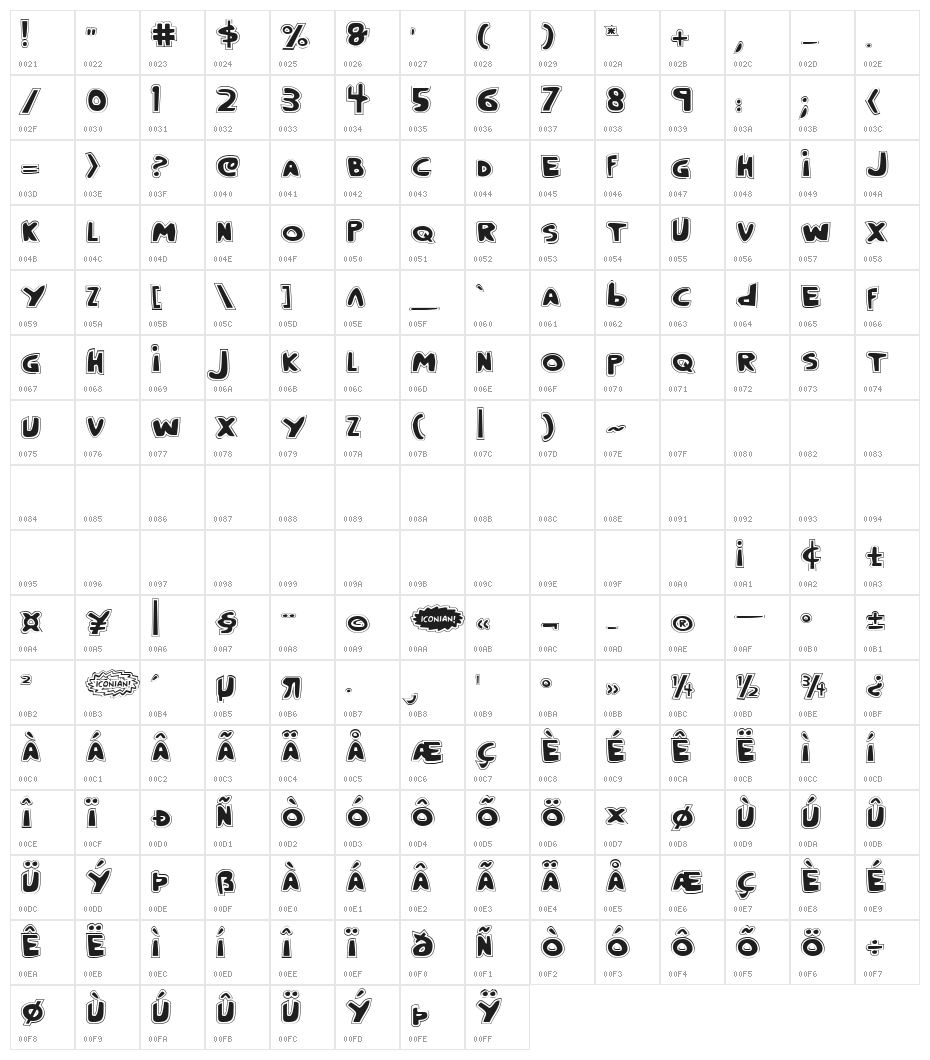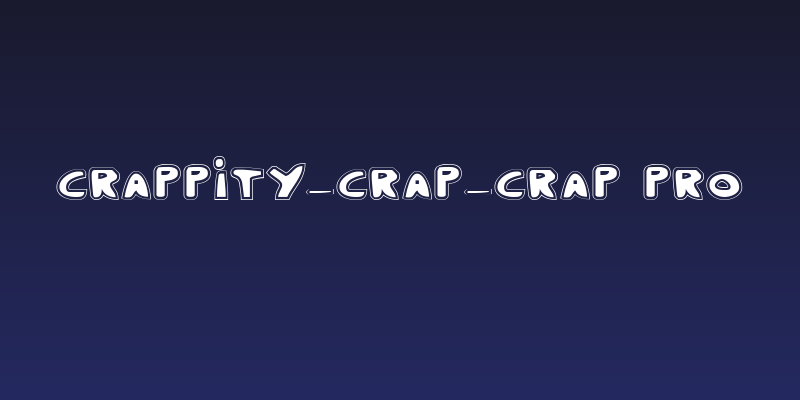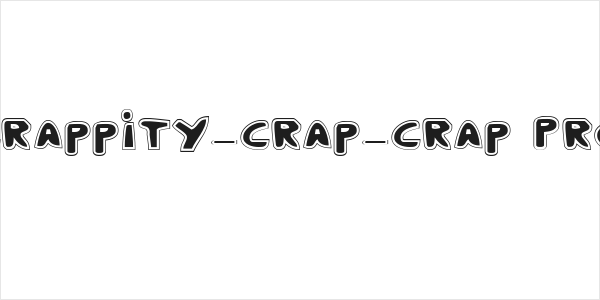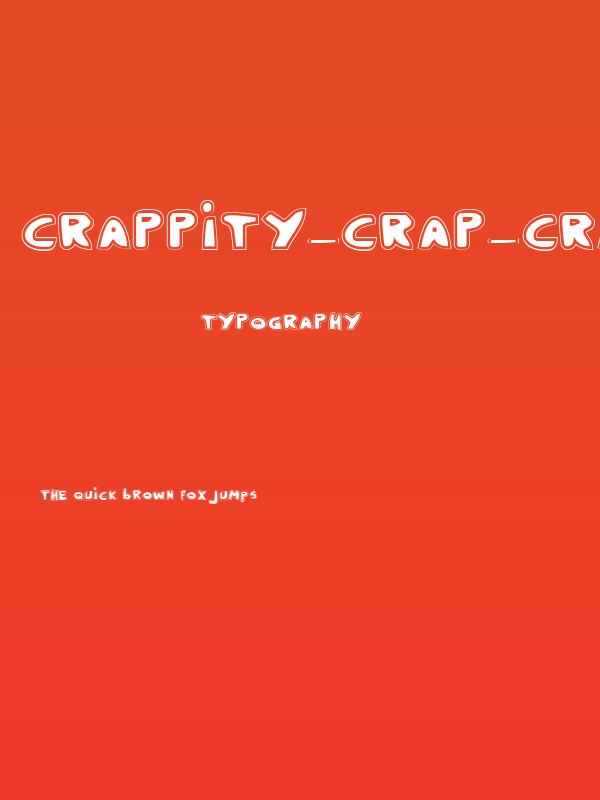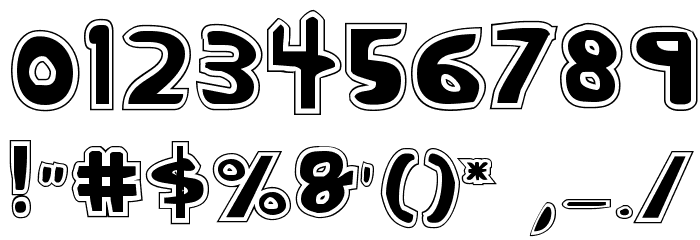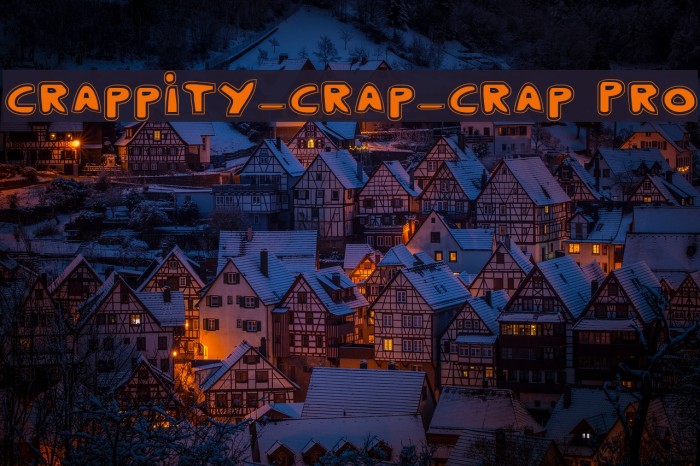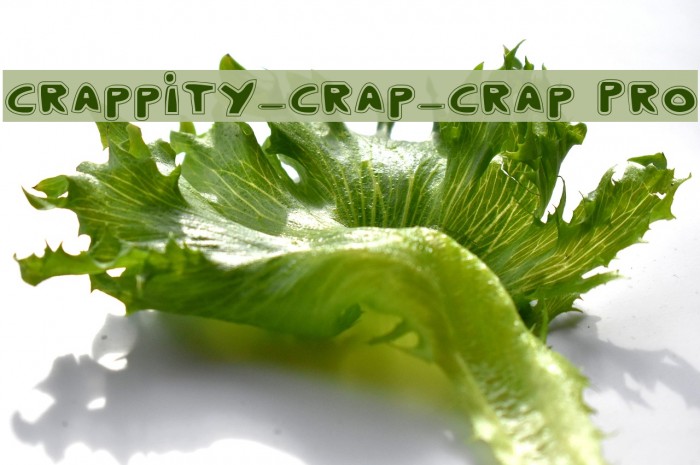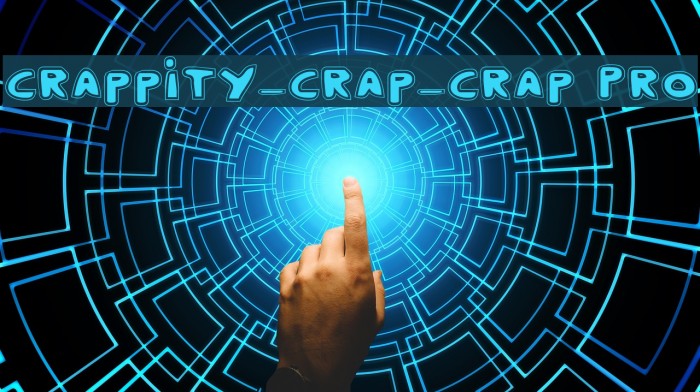
Crappity-Crap-Crap Pro Font
Crappity-Crap-Crap Pro Description
This playful and bold font features a thick, cartoonish style with a strong outline that gives it a three-dimensional appearance. The letters are slightly irregular, adding a whimsical and informal touch. The uppercase and lowercase characters maintain a consistent style, with rounded edges and exaggerated curves. The numbers and special characters follow the same playful design, making the font suitable for creative and fun projects. Its boldness and unique style make it stand out, perfect for grabbing attention.
| Overall Style | Playful, Cartoonish, Fun |
| Use Case | Headlines, Posters, Branding |
| Proposed Projects | Ideal for children's books, comic strips, playful branding, and eye-catching posters. |